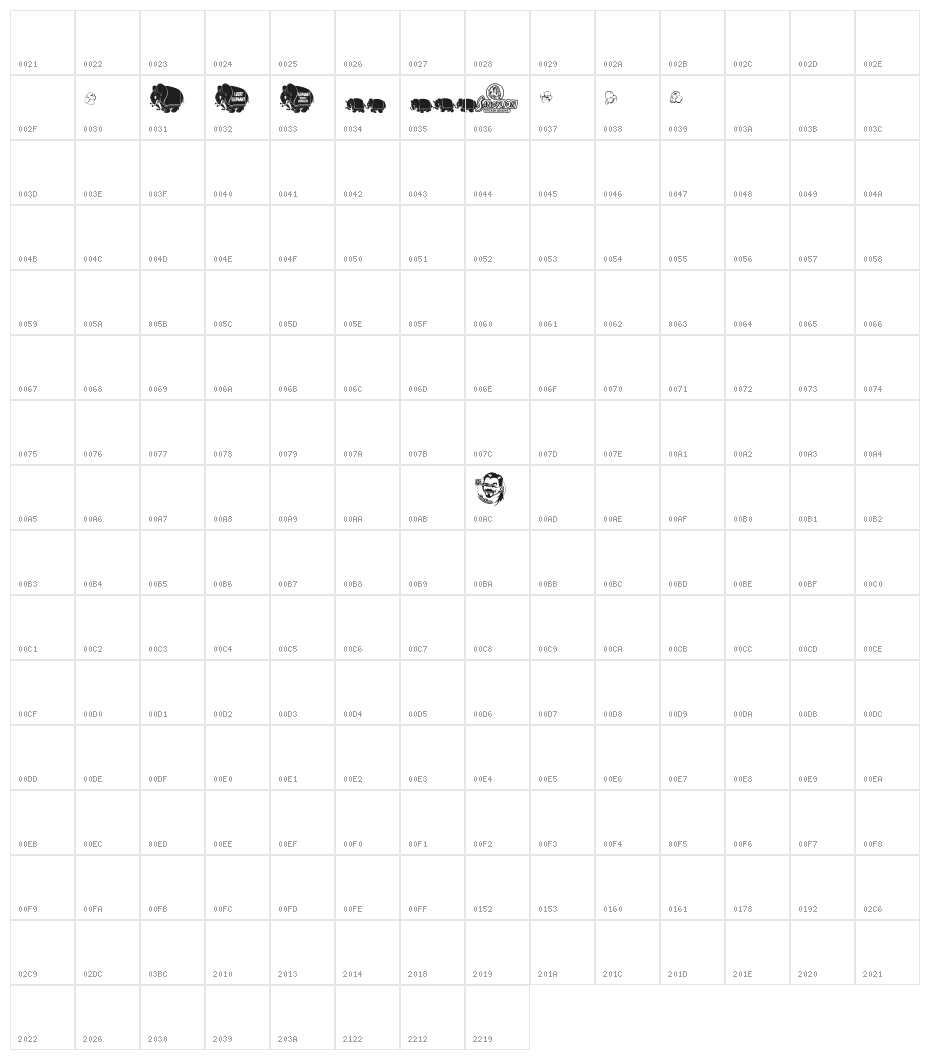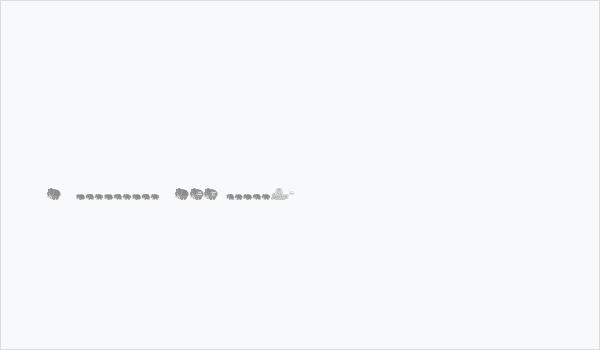
PinkCandyPopcornBats Font
PinkCandyPopcornBats Description
This image contains a series of illustrated silhouettes featuring elephants, popcorn, and a logo, rather than a standard font with alphabetic or numeric characters.
| Overall Style | Illustrative, Decorative |
| Use Case | Decorative borders, themed graphics |